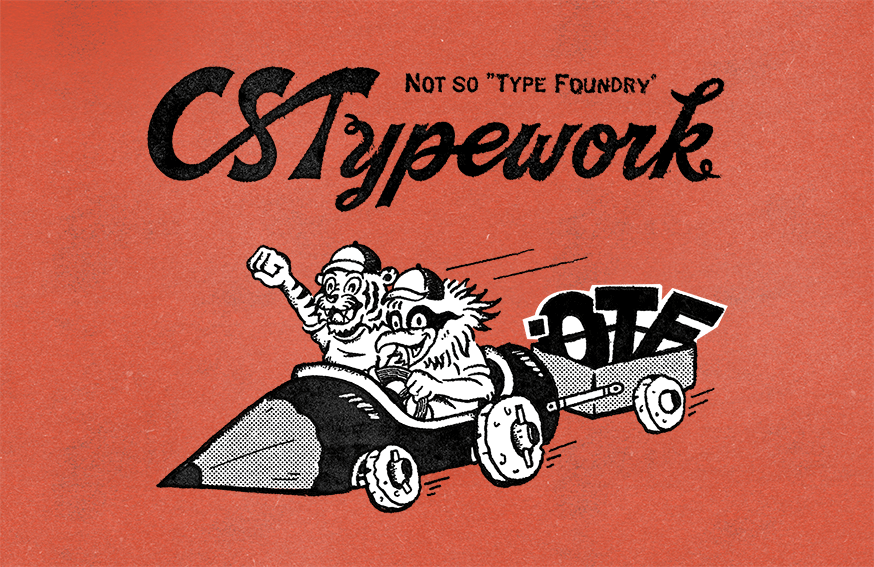
CS Typework is a collaboration between CMPT and SOKA. As graphic designers, we often found it difficult to find fonts that truly matched the character of our work. That frustration is what brought us together, to start creating typefaces that feel more natural and relevant for illustrators and graphic designers.
CS Typework exists to help designers, especially those working with vintage and modern concepts, find fonts that don’t feel stiff or generic.
Our focus is on creating typefaces with character, fonts that are expressive, flexible, and easy to blend seamlessly with graphics.
We design fonts from a designer’s perspective, shaped by real creative needs and real world use.